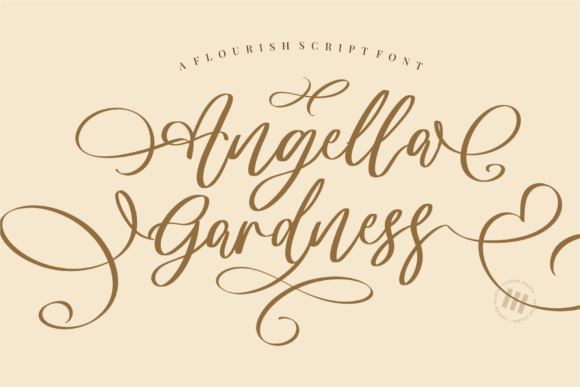
Adding a Touch of Handmade Elegance to Your Designs
As a designer, there’s nothing quite like the feeling of bringing a project to life. It’s that moment when your idea finally takes shape, and you can see the beauty of your creation unfolding before your eyes. For many of us, it’s the small details that make all the difference – the subtle curves, the elegant lines, and the delicate flourishes that give our designs a handmade touch.
That’s where the Angella Gardness Font comes in. This stunning script font is designed to add a touch of sophistication and elegance to any design. With its varying baseline, smooth lines, gorgeous glyphs, and stunning alternates, it’s the perfect choice for wedding invitations, thank you cards, quotes, greeting cards, logos, business cards, and every other design that needs a handwritten touch. For designers, the Angella Gardness Font is a valuable addition to any toolkit, offering endless possibilities for creative expression and style.
Angella Gardness Font Key Features
- Font Family: Angella Gardness is a part of the Angella font family, which is a beautiful and elegant script font.
- Unique Characteristics: Features a unique, handwritten style with subtle flair and elegance, making it perfect for wedding invitations, quotes, and other creative designs.
Designer Review: Angella Gardness Font
I’ve had the chance to work with Angella Gardness Font, and here’s my honest take on it. ✨ One thing that really stands out is its elegance and sophistication. The font is perfect for projects that require a touch of refinement, such as luxury branding, high-end advertising, or even wedding invitations.
Here are some of the things that I think work well in this font:
- Unique and stylish letterforms that evoke a sense of luxury
- Excellent legibility, even at small sizes
- Supports a wide range of languages, making it a great choice for international projects
However, I did notice a few limitations that might impact its usability:
- ⚠️ The font can be quite heavy, which may not be suitable for all projects or screen sizes
- ⚠️ Some characters, like the ‘k’ and ‘q’, can be tricky to read at certain angles
- ⚠️ The font might not be as versatile as some other sans-serif options, which could limit its appeal
Overall, Angella Gardness Font is a solid choice for projects that demand a touch of high-end style. While it may not be the most versatile font, its elegance and sophistication make it a great option for the right projects.
The Angela Gardness Font is ideal for:
- Designing feminine and elegant graphics.
- Creating invitations and event materials.
- Developing branding materials for wellness and lifestyle businesses.